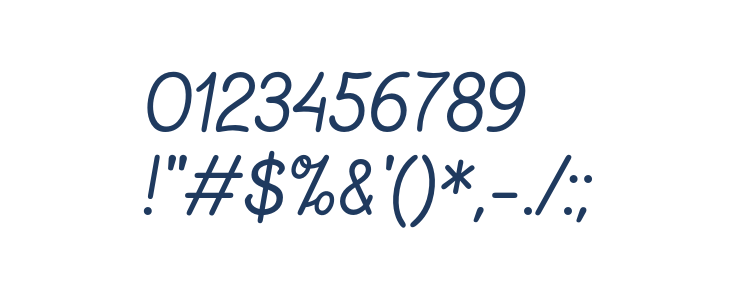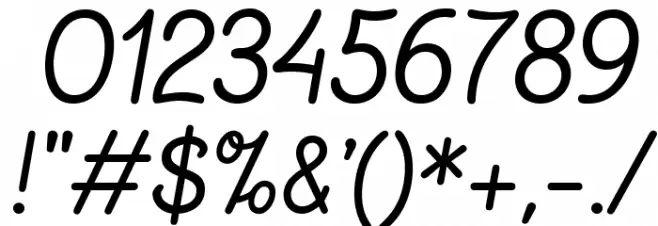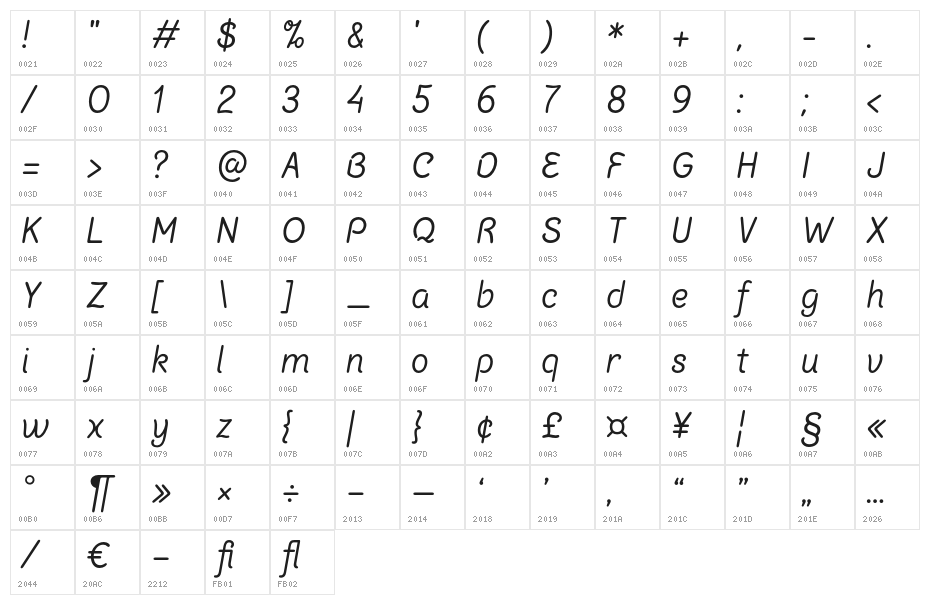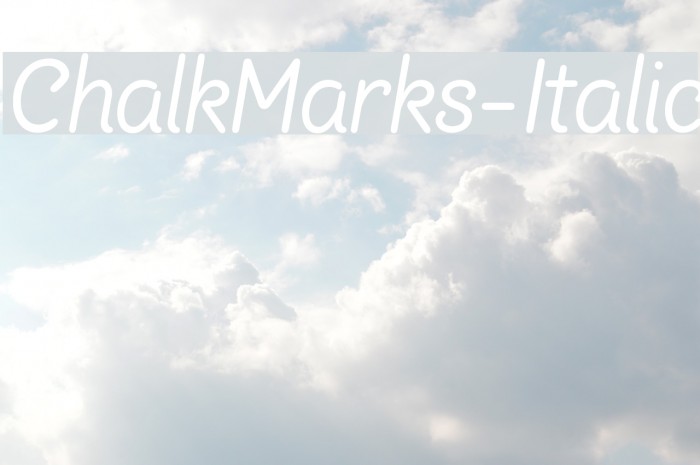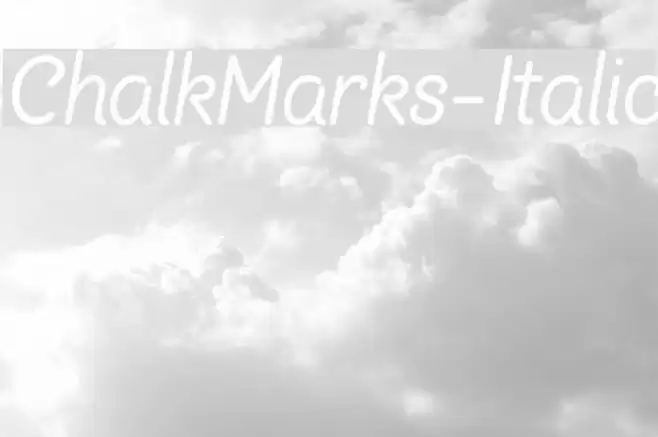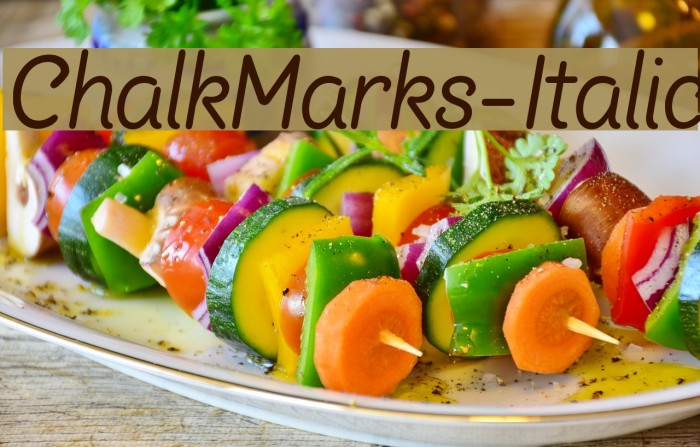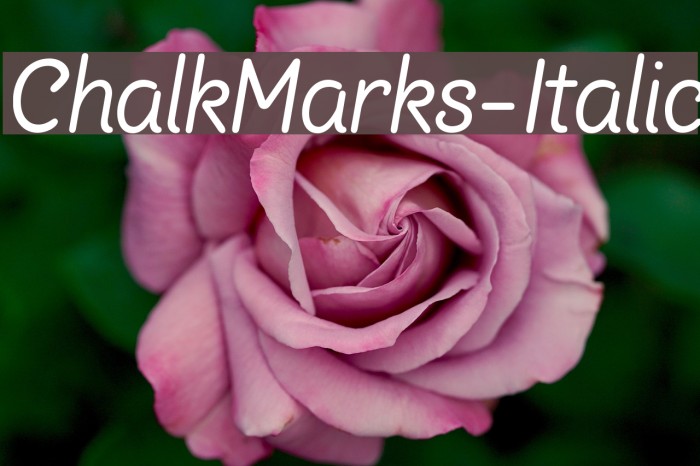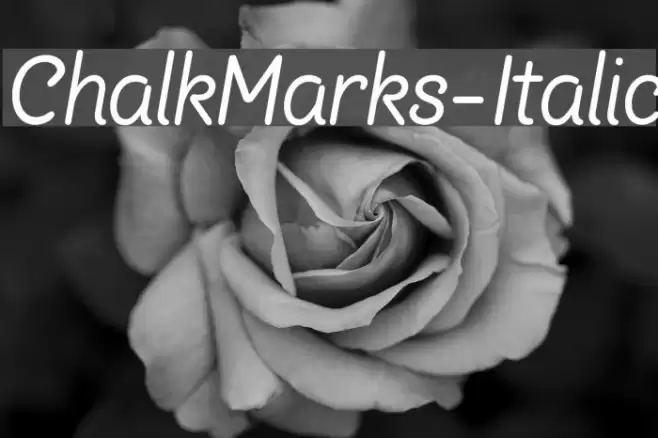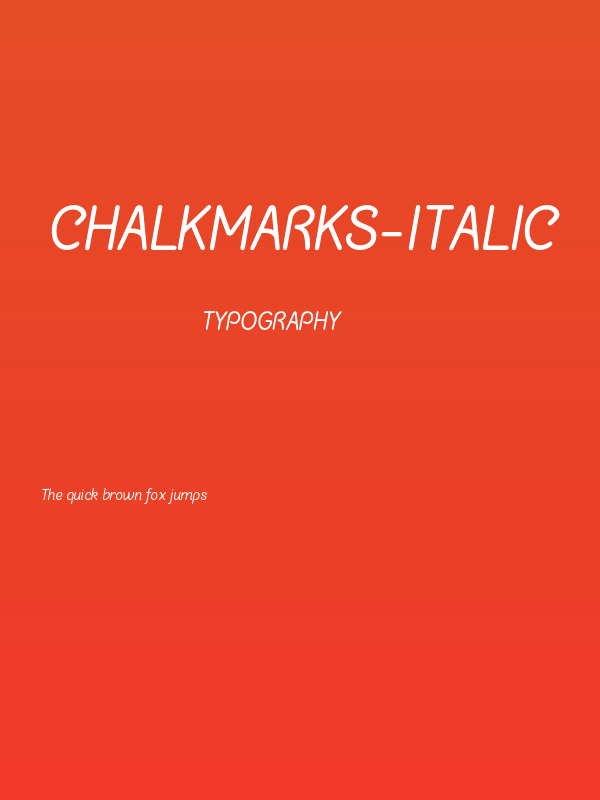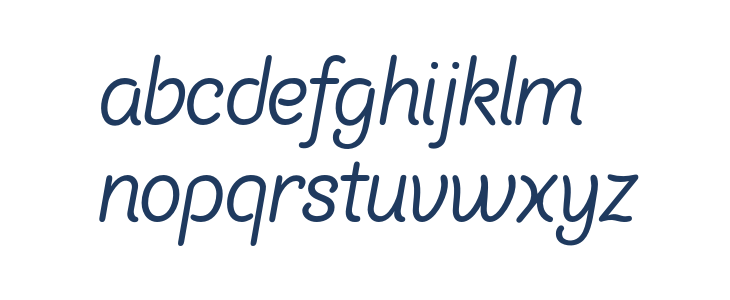
ChalkMarks-Italic Font
ChalkMarks-Italic Description
This font features a playful, handwritten style with a smooth, flowing appearance. The characters are slightly slanted, giving an informal and casual feel. The strokes are consistent in thickness, providing a uniform look across all letters and numbers. The rounded edges and curves add a friendly and approachable touch, making it suitable for creative and informal projects. The font maintains good readability, even with its unique style, and includes a full set of uppercase and lowercase letters, numbers, and a variety of special characters.
| Proposed Projects | Ideal for children's books, greeting cards, posters, and creative branding projects. |